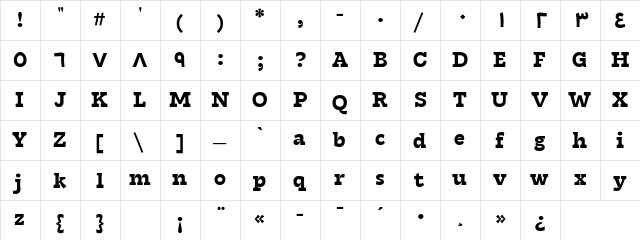
Tarif Arabic Bold
| Foundry | Zetafonts |
| Designer | Andrea Tartarelli, Cosimo Lorenzo Pancini, Francesco Canovaro |
Design Context for Tarif Arabic Typeface
Tarif Arabic takes a measured approach to typography — its balanced proportions and neutral character make it a reliable workhorse for both digital and print work. The heavy weight commands attention and anchors typographic hierarchies.